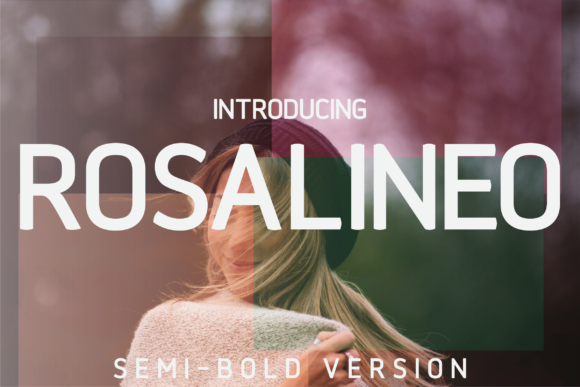
Introducing the captivating Rosalineo Semi-Bold font, a sans serif masterpiece that breathes new life into your digital creations. Inspired by the legendary Helvetica, Rosalineo Semi-Bold carries the essence of classic typography while injecting a touch of contemporary flair. Prepare to unleash your creative vision with a font that commands attention and leaves a lasting impression.
Rosalineo Semi-Bold exudes versatility, effortlessly adapting to a wide range of design projects. Its clean lines and sharp edges render beautifully on both print and digital media, ensuring your messages shine across platforms. Whether crafting captivating logos, designing sleek websites, or composing elegant brochures, Rosalineo Semi-Bold seamlessly complements your creative endeavors.
Experience the readability and clarity that Rosalineo Semi-Bold brings to your designs. Its carefully crafted letterforms enhance the legibility of your text, ensuring seamless reading experiences for your audience. Headlines, body copy, and even the most intricate details will be rendered with precision, guaranteeing that your message is communicated with crystal-clear clarity.
Step into the world of Rosalineo Semi-Bold and let your creativity soar. Its timeless appeal and unwavering performance make it the perfect choice for designers and typography enthusiasts seeking a font that combines tradition and innovation. Embrace the power of Rosalineo Semi-Bold today and unlock a new realm of creative possibilities.